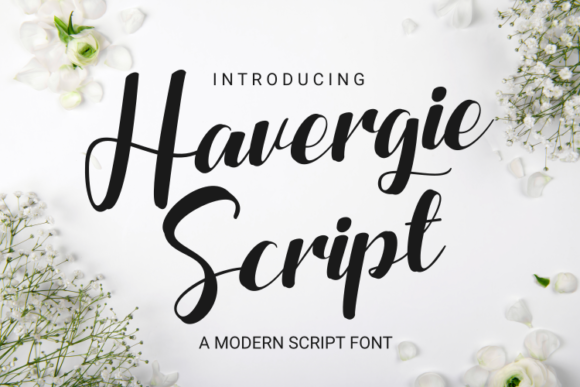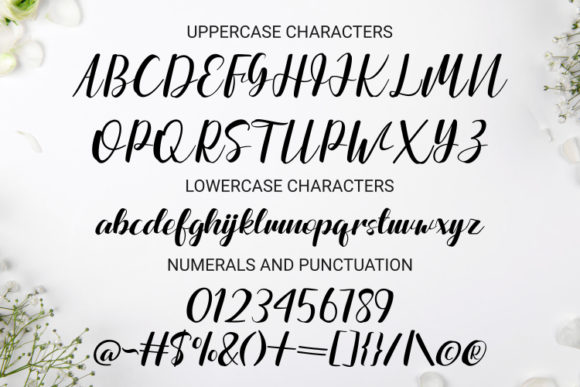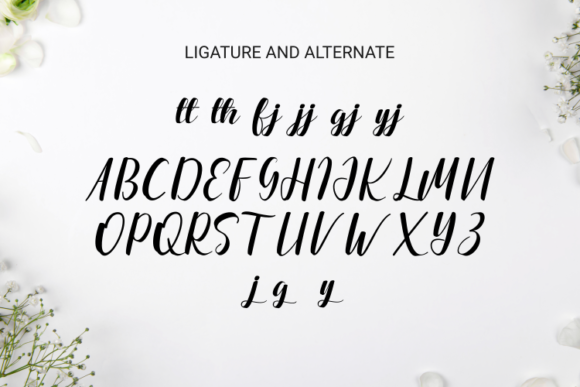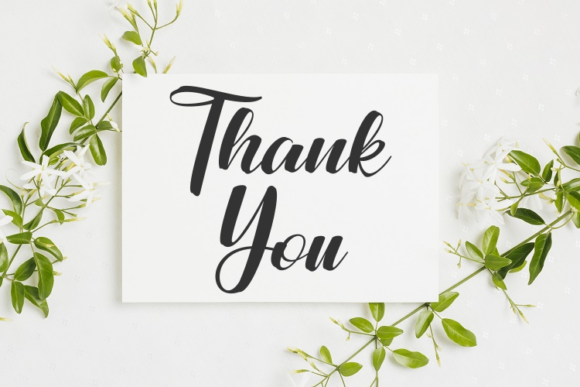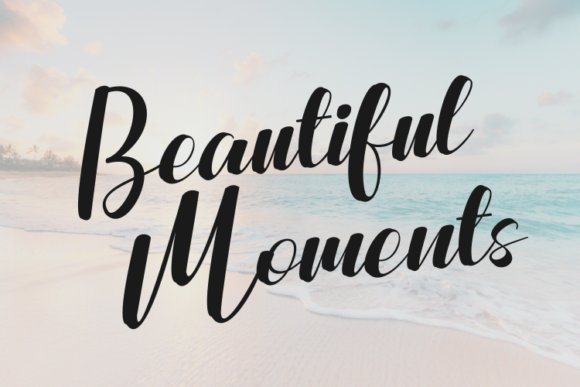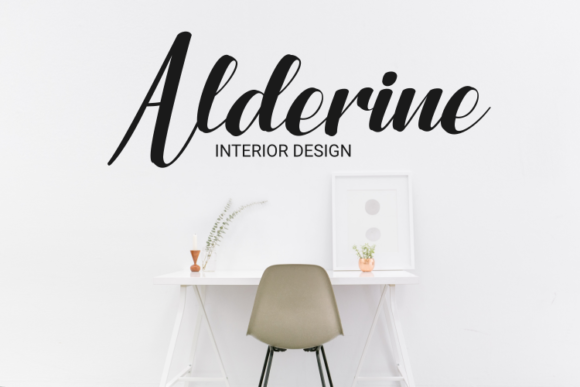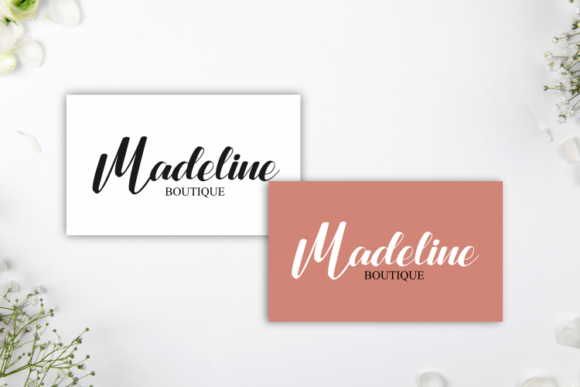
Havergie Font
Havergie is a chic, thick lettered script font that emanates trendiness. Its stylish alternates and ligatures make this font the perfect match for any project.